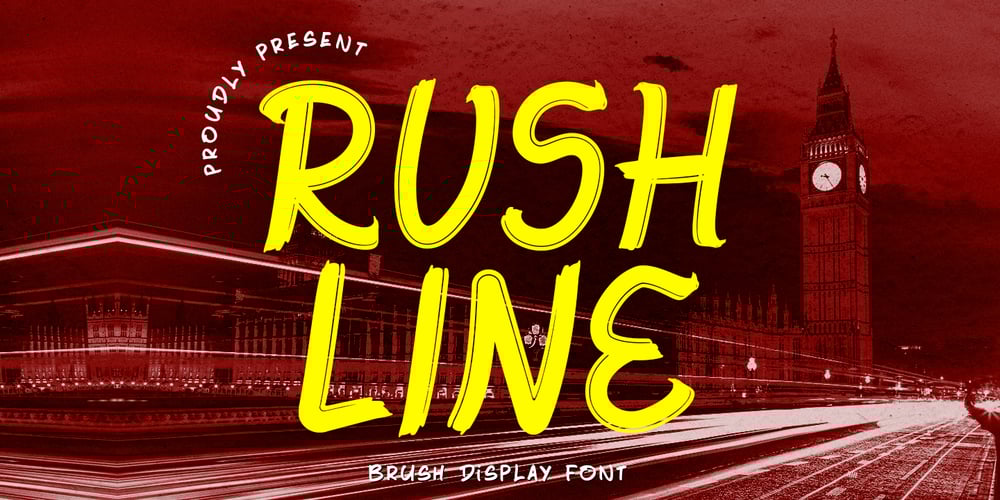
Rushline Font Family was designed by Bayu Suwirya and published by Illushvara. Rushline contains 1 styles and family package options. Rushline is a fun display font. Add this font to your favorite creative ideas and notice how it makes them come alive!